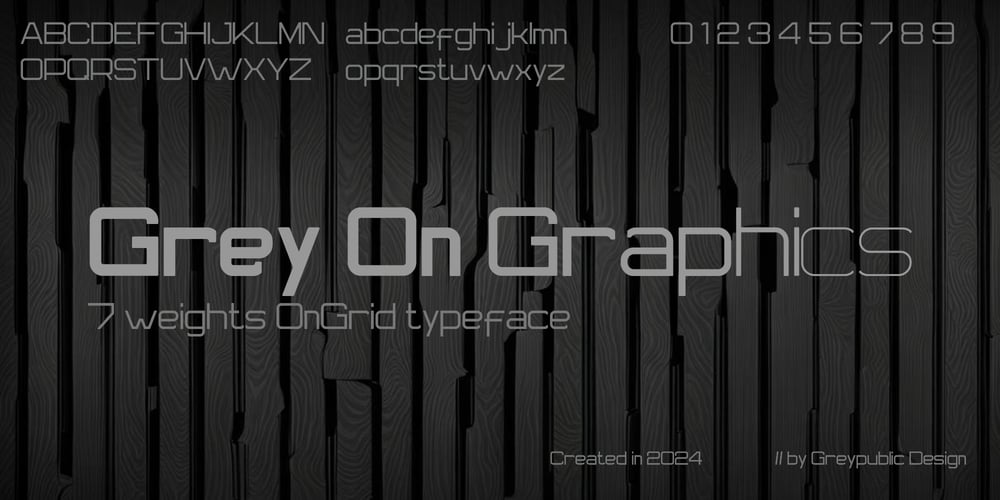
On Grid
On Grid font
On Grid Font Family was designed by Eko Nur Setiawan and published by Greypublic. On Grid contains 7 styles and family package options. OnGrid typeface typically refers to a type of font that is straightforward, clear, and easy to read. Simple fonts are often used when the goal is to convey information in a clean and uncomplicated manner.These fonts are commonly used in a range of contexts, including body text in documents, websites, and presentations, where readability and clarity are essential.When choosing this font, consider the context of its use and the overall design goals. The simplicity of the font should complement the visual elements of your project while ensuring that the text remains easy to read and understand.